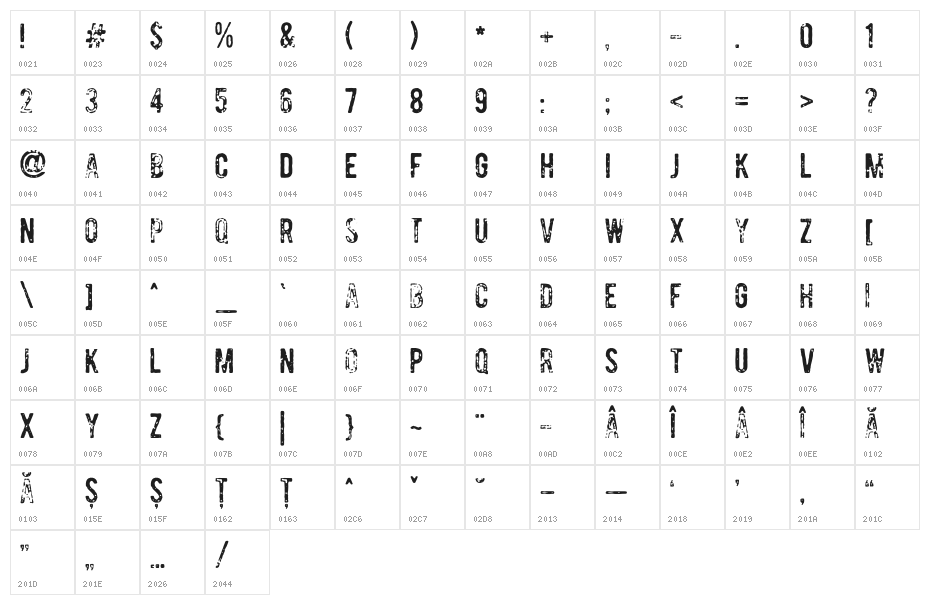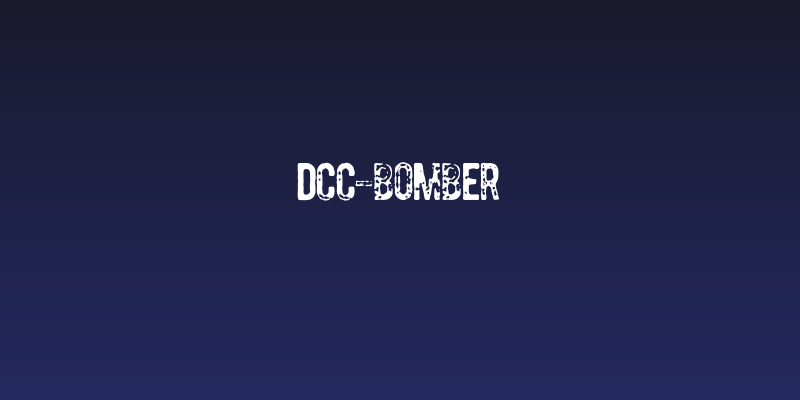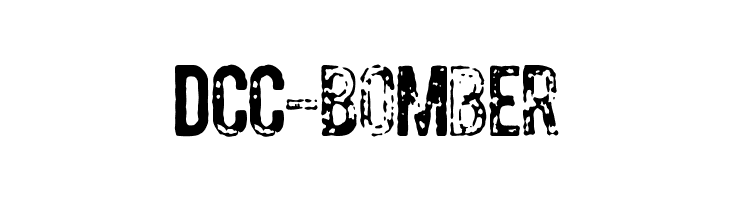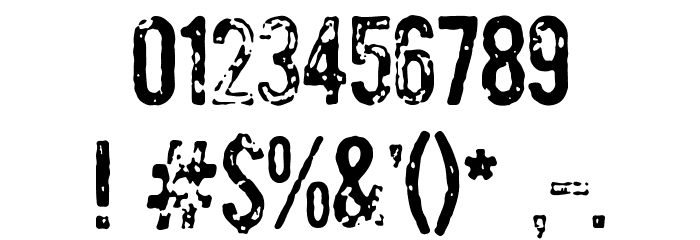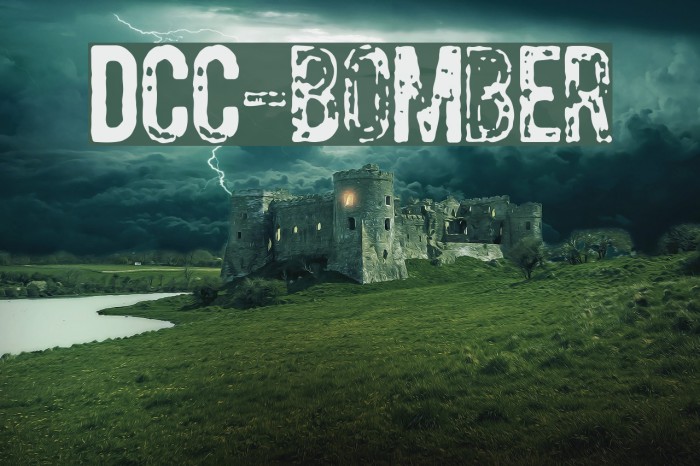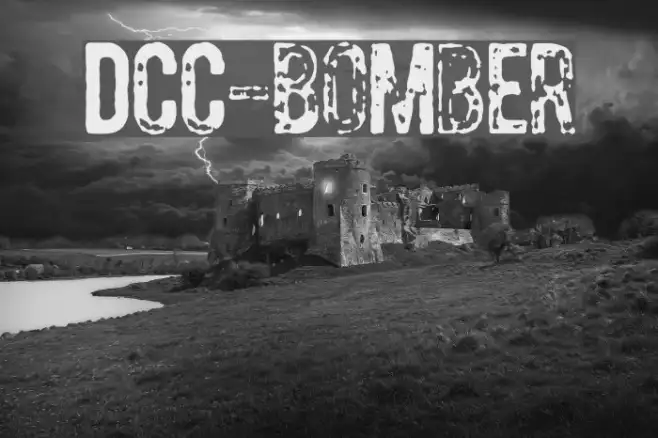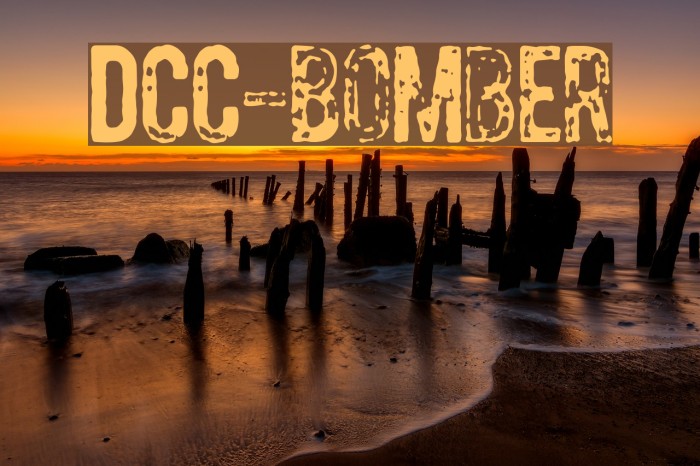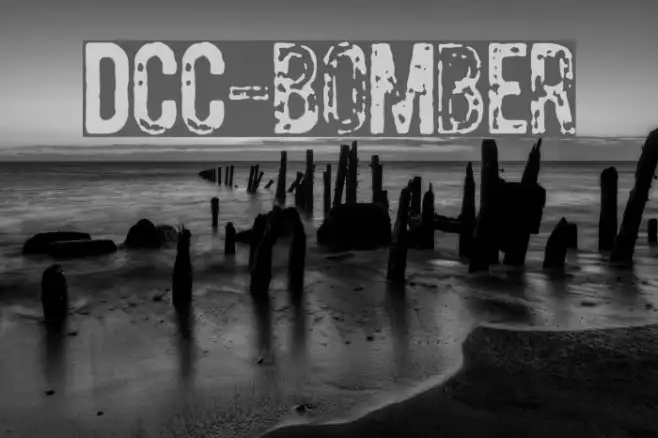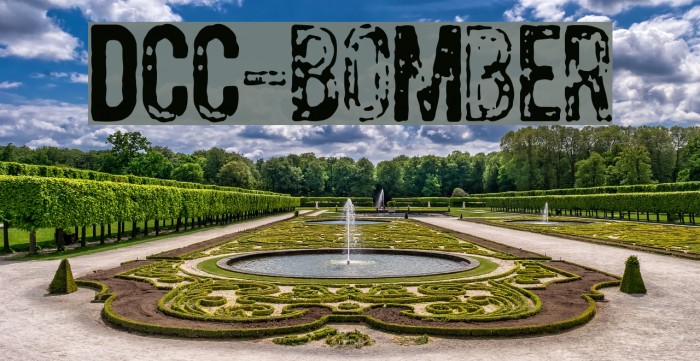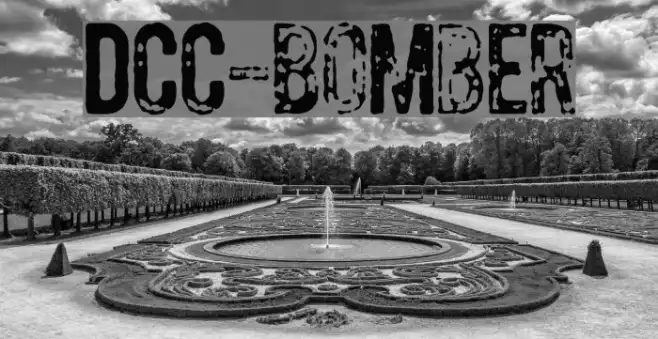
DCC-Bomber Font
DCC-Bomber Description
This font features a bold, distressed style with a rugged, weathered appearance. The characters are uppercase and lowercase with a rough texture that gives them a gritty, urban feel. The numbers and special characters follow the same distressed pattern, making the font ideal for projects that require a raw, edgy look. The uneven edges and worn-out effect suggest a vintage or industrial aesthetic, perfect for designs that aim to convey toughness or resilience. The font's unique style makes it stand out, capturing attention with its bold and impactful presence.
| Proposed Projects | Ideal for posters, album covers, streetwear branding, and urban-themed designs. |